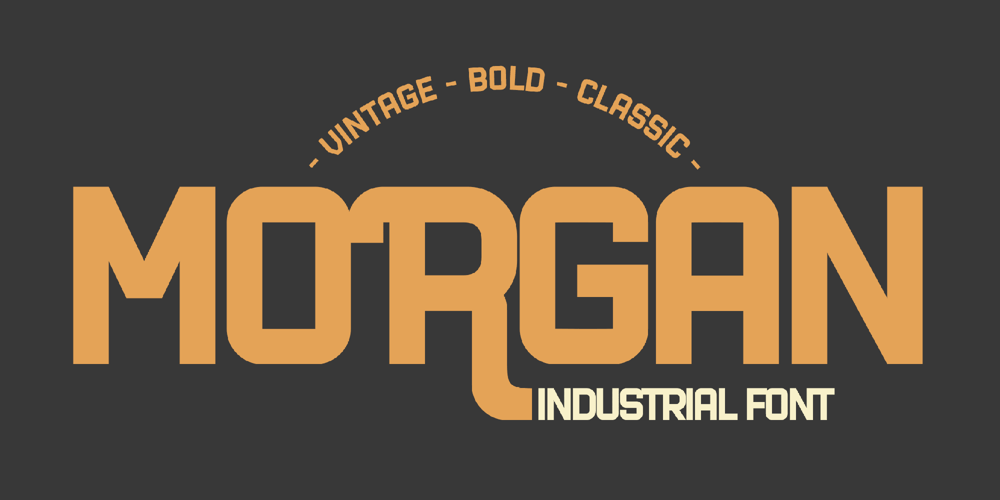
Morgan Font Family was designed by Heri Imanudin and published by Krafted. Morgan contains 1 styles and family package options. Looking for a powerful and distinct font for your brand? Introducing Morgan – an Industrial Font.A perfect blend between vintage and modern design, Morgan makes your business image strong and reliable.It’s excellent for both print and web, allowing you to create eye-catching web pages, apps, ads, printed cards, merchandise, and anything else you need.What you’ll get: Multilingual & Ligature Support Full sets of Punctuation and Numerals Compatible with: Adobe Suite Microsoft Office KeyNote Pages Software Requirements: The fonts that you’ll receive in the pack are widely supported by most software. In order to get the full functionality of the selection of standard ligatures (custom created letters) in the script font, any software that can read OpenType fonts will work. We hope you enjoy this font and that it makes your branding sparkle! Feel free to reach out to us if you’d like more information or if you have any concerns.